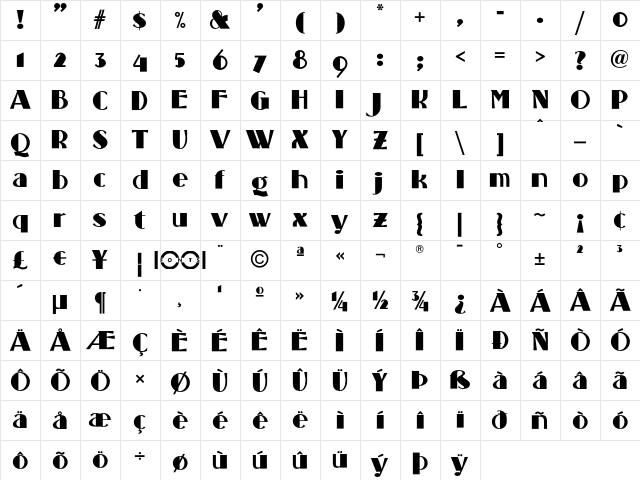
Standing Room Only NF Regular
| Foundry | Nick's Fonts |
| Designer | Nick Curtis |
Design Context for Standing Room Only NF Typeface
Standing Room Only NF is a composed and adaptable typeface that performs quietly and consistently across a wide range of design contexts.